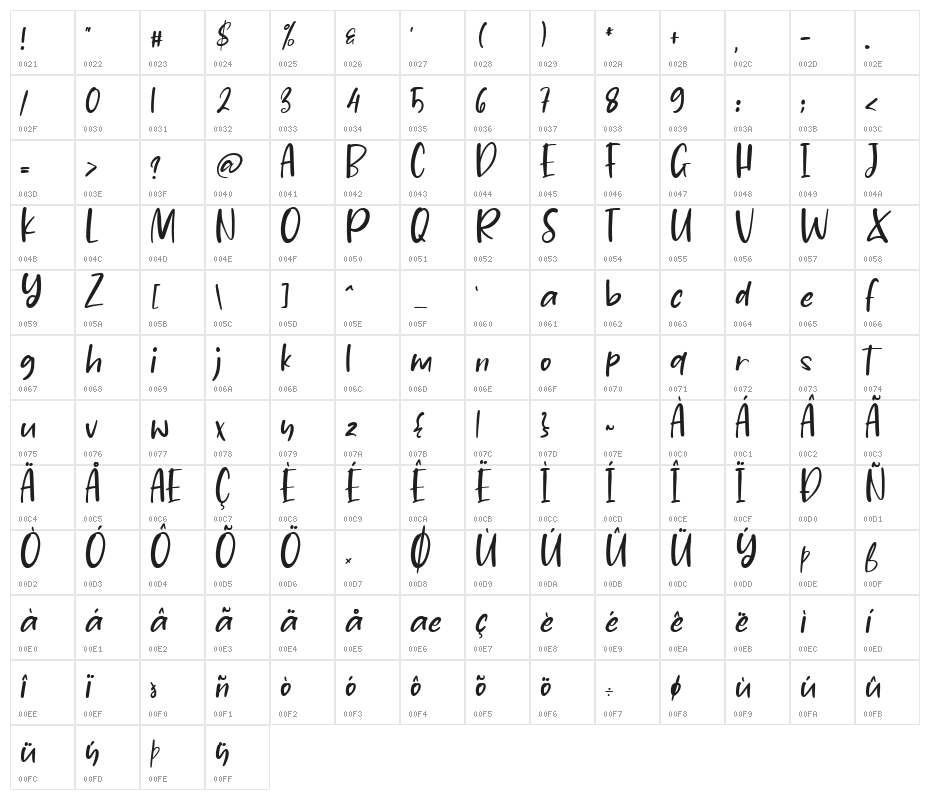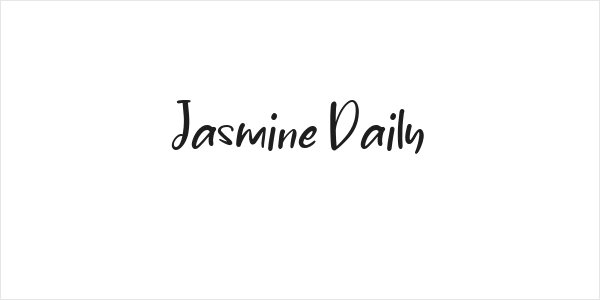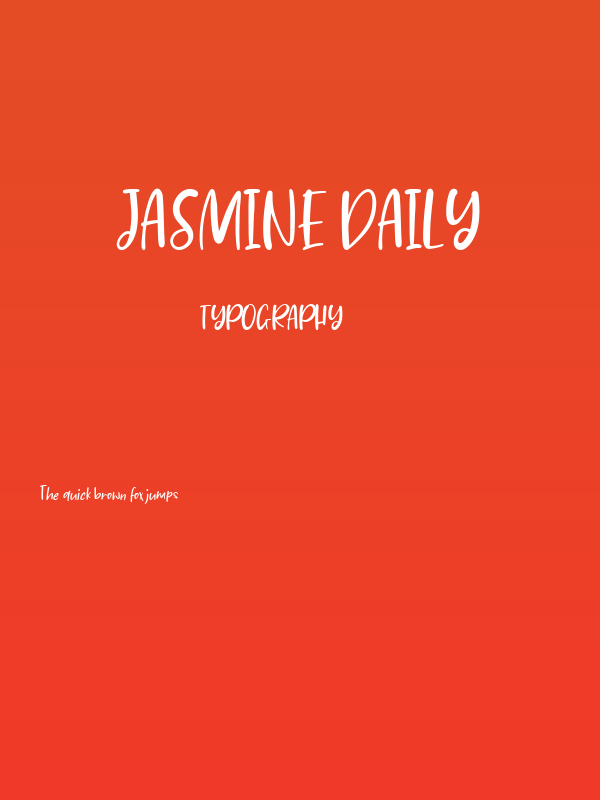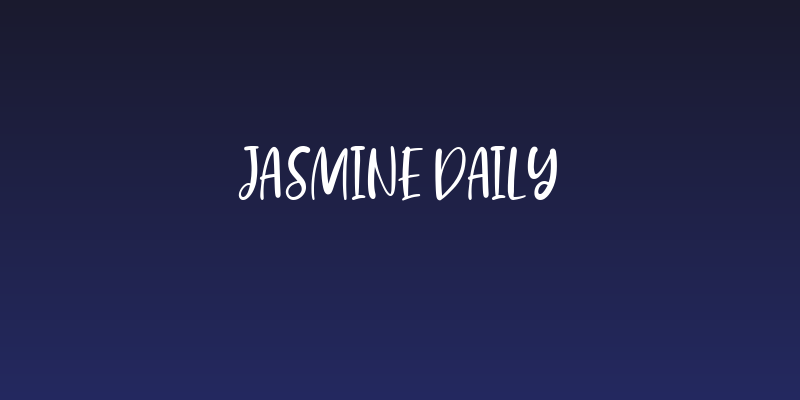
Jasmine Daily Font
Jasmine Daily Description
This font features a lively and expressive handwritten style, characterized by its fluid and dynamic strokes. The letters are slightly slanted, giving a casual and friendly appearance. The uppercase letters are bold and prominent, while the lowercase letters maintain a consistent flow, enhancing readability. The numerals and special characters are crafted with the same playful energy, making them suitable for creative projects. The overall design is modern and approachable, perfect for adding a personal touch to any text.
| Use Case | Logos, Headlines, Social media posts |
| Proposed Projects | Ideal for greeting cards, invitations, personal branding, and social media graphics. |